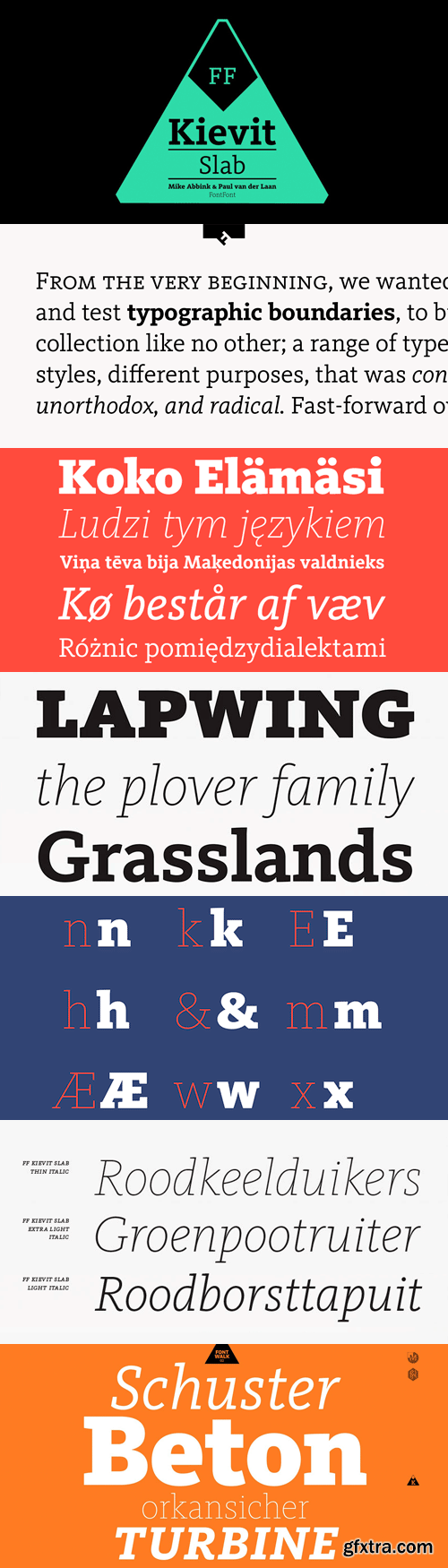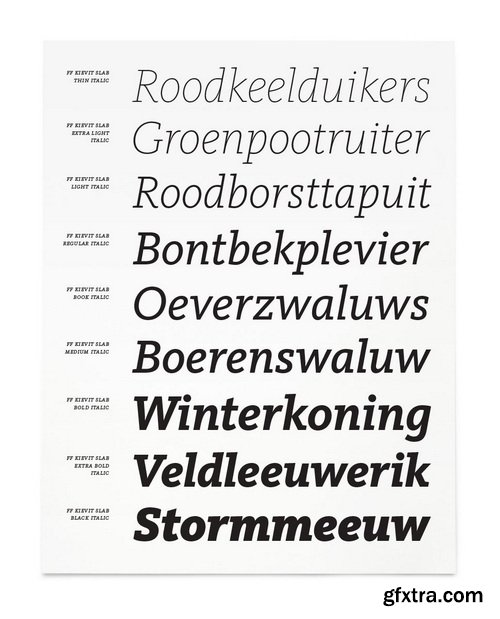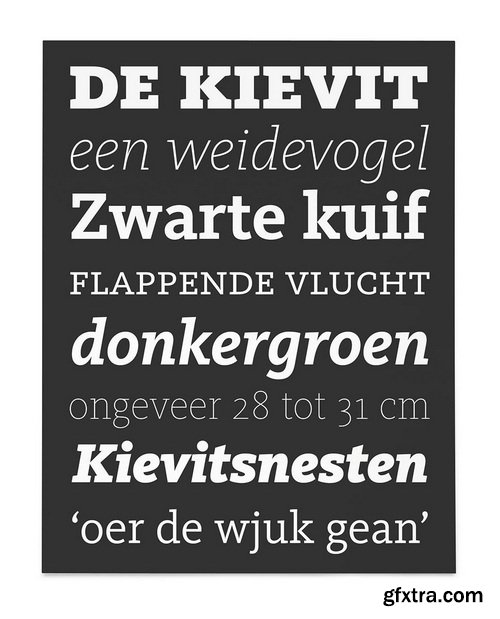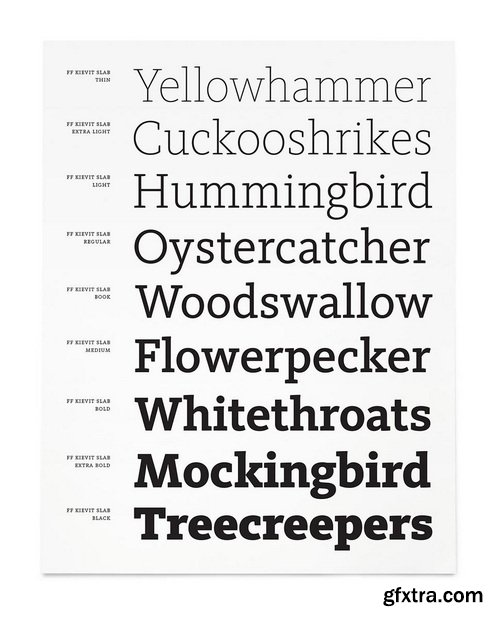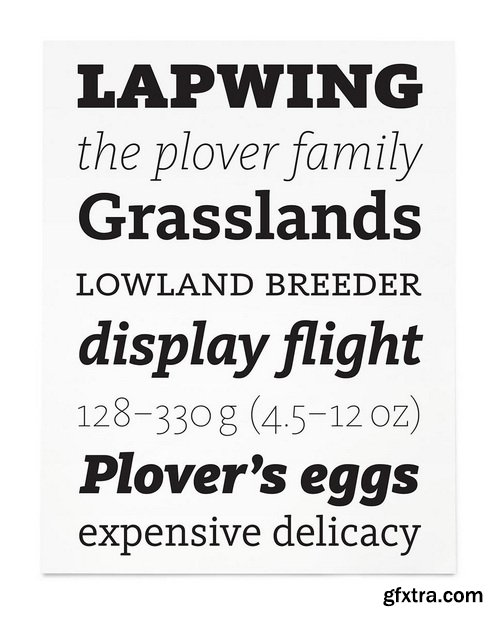
FF Kievit Slab Font Family - 18 Fonts for $659
- American type designer Michael Abbink and Dutch type designer Paul van der Laan created this slab FontFont in 2013. The family has 18 weights, ranging from Thin to Black (including italics) and is ideally suited for advertising and packaging, book text, logo, branding, small text, wayfinding and signage as well as web and screen design. FF Kievit provides advanced typographical support with features such as ligatures, small capitals, alternate characters, case-sensitive forms, fractions, and super- and subscript characters. It comes with a complete range of figure set options – oldstyle and lining figures, each in tabular and proportional widths.